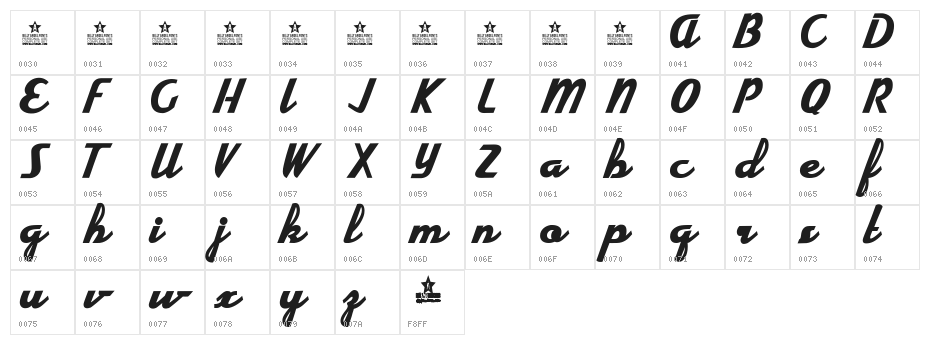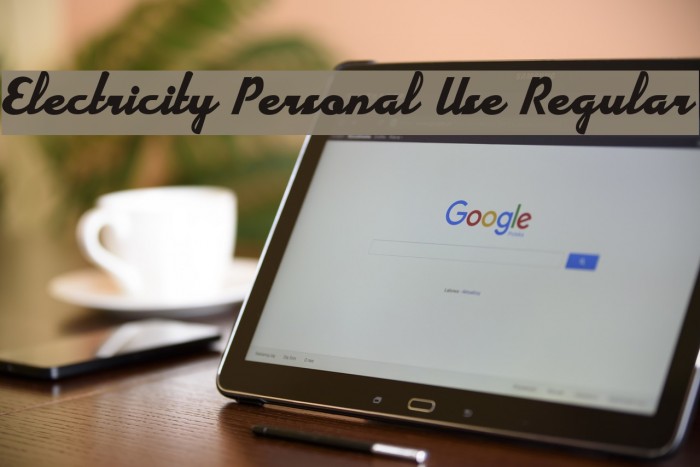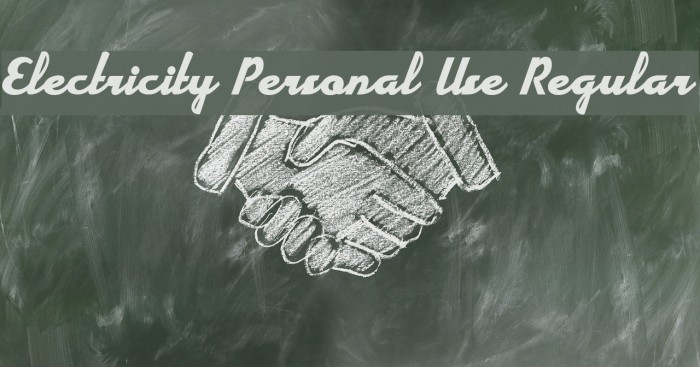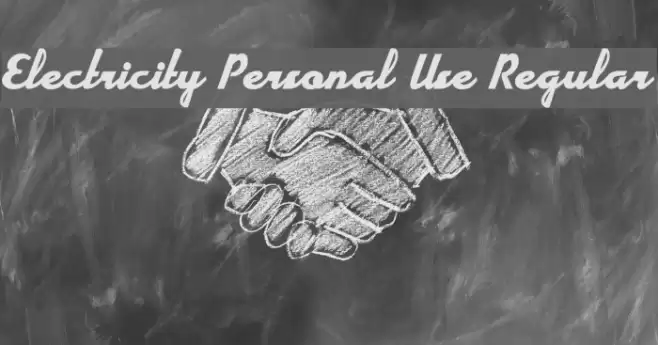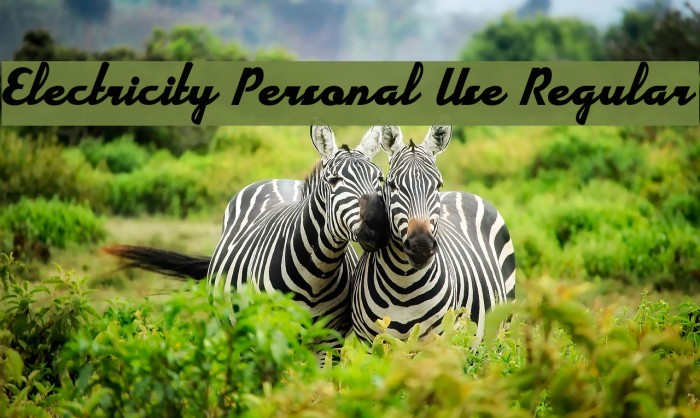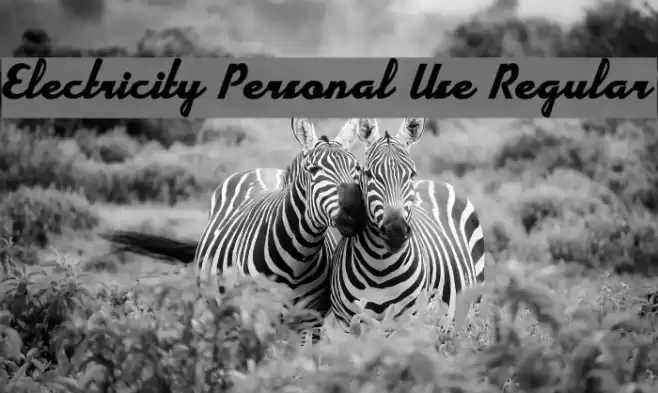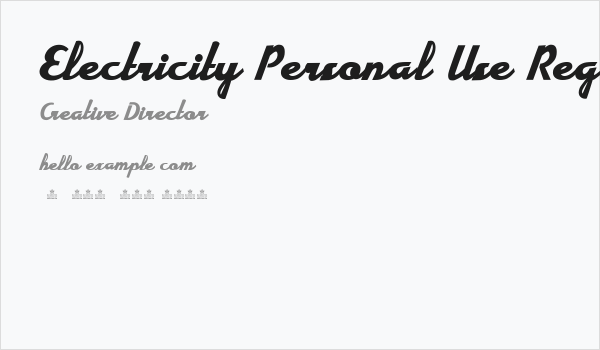
Electricity Personal Use Regular Font
Electricity Personal Use Regular Description
This font features a dynamic and energetic style with a strong slant, giving it a sense of motion and speed. The uppercase letters are bold and angular, while the lowercase letters maintain a fluid, cursive-like appearance. The strokes are thick and consistent, providing a solid and impactful presence. The overall design is modern and slightly futuristic, making it suitable for projects that require a bold statement. The character spacing is tight, enhancing the compact and cohesive look of the text. This font is ideal for creative and expressive designs, where a sense of movement and energy is desired.
Proposed ProjectsIdeal for sports branding, music album covers, dynamic posters, and modern advertising campaigns.